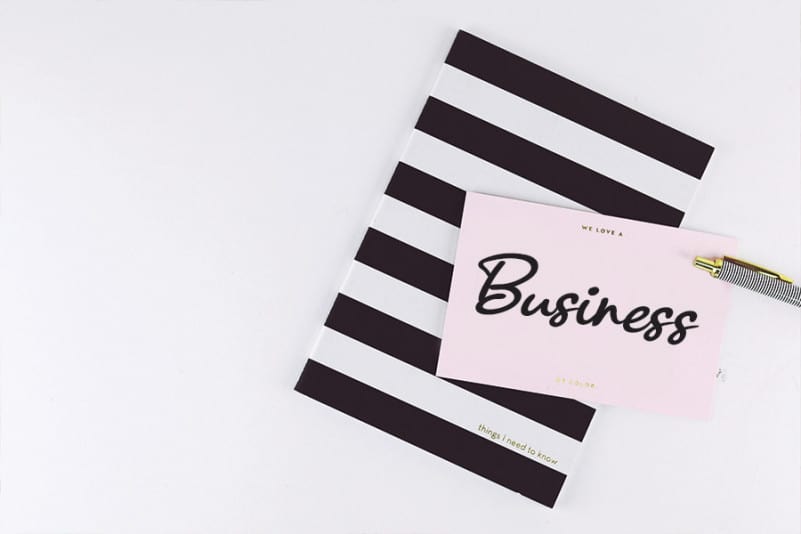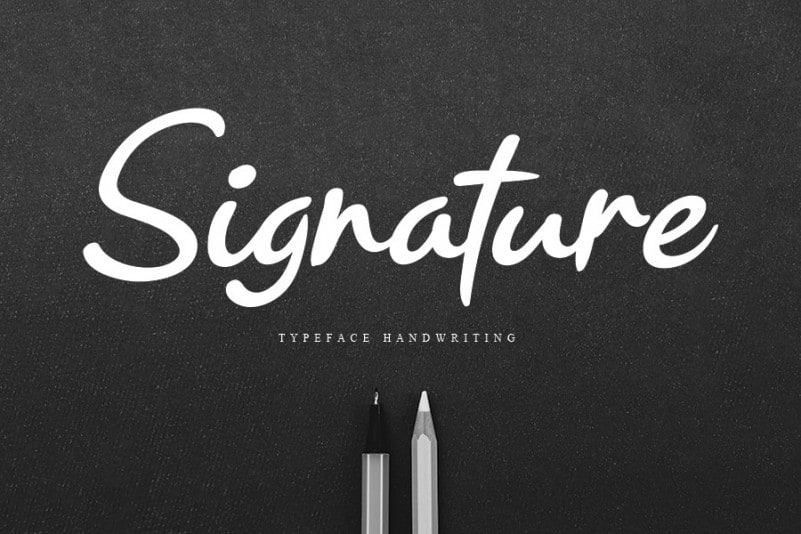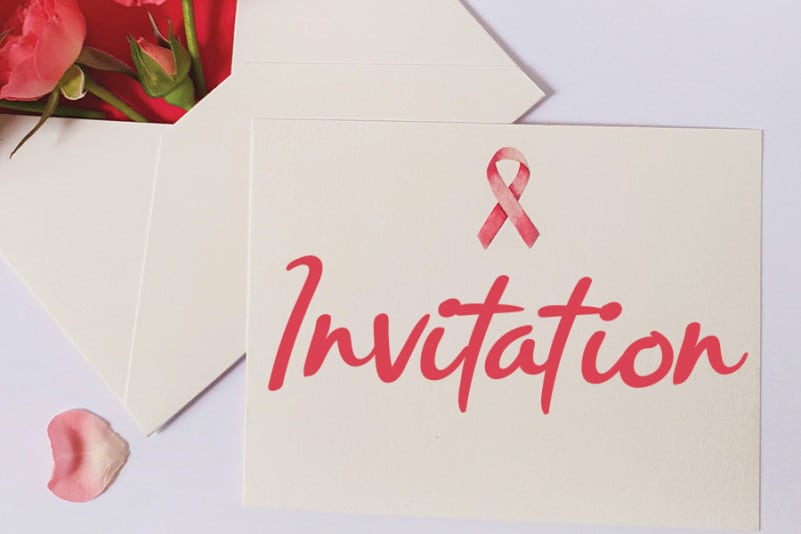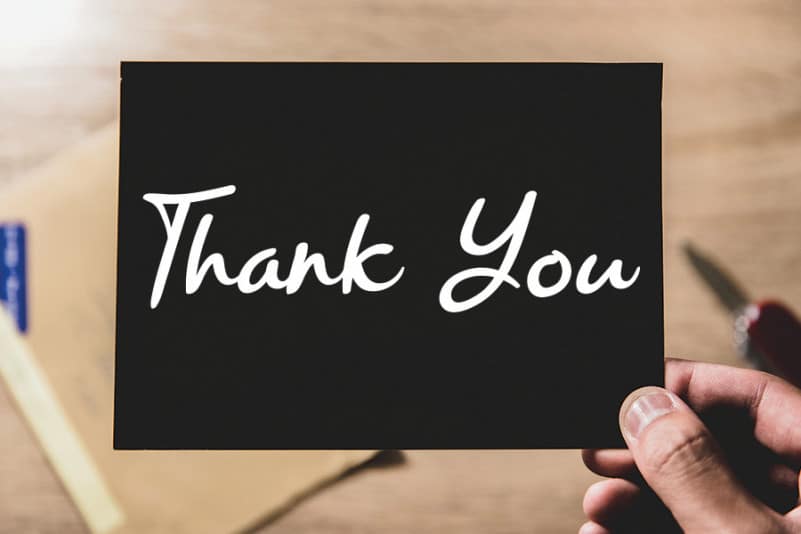
Bellania Script Font
Bellania Font is a magical handwritten font carefully created with a touch of elegance. Whether you’re looking for fonts for Instagram or calligraphy scripts for DIY projects, Bellania will turn any creative idea into a true piece of art!